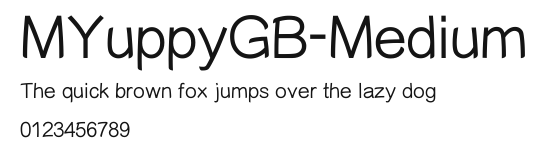
About MYuppyGB-Medium.ttf
MYuppyGB-Medium.ttf is a modern, elegant sans-serif font designed for ultimate readability and visual harmony. Perfect for branding, headlines, web design, and print materials.